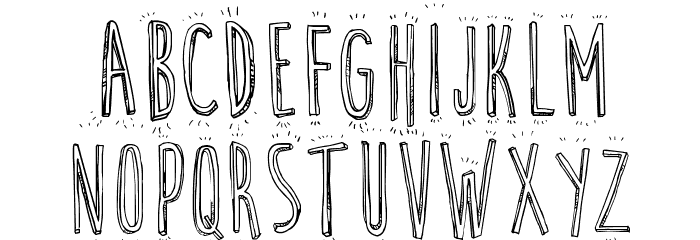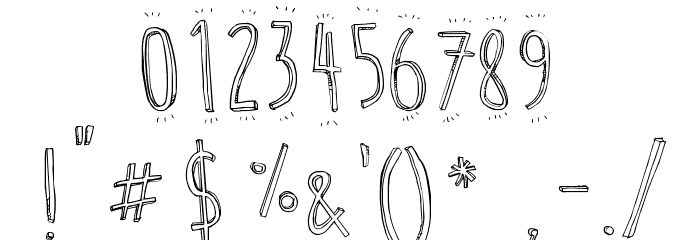
Cute Cartoon Font
This playful and whimsical font features a hand-drawn style with a cartoonish flair. Each character is outlined with a slightly uneven stroke, giving it a lively and dynamic appearance. The letters are tall and narrow, with a quirky, informal vibe that is accentuated by small decorative lines and dots around the characters. The numbers and special characters maintain the same playful aesthetic, making the font cohesive and versatile. This font is perfect for projects that require a fun and engaging look, such as children's books, comic strips, or playful branding.
A playful, hand-drawn font with a cartoonish and whimsical style.
- Font: Cute Cartoon
- Proposed Projects: Ideal for children's books, comic strips, playful branding, and creative posters.
- Overall Style: Whimsical, Playful